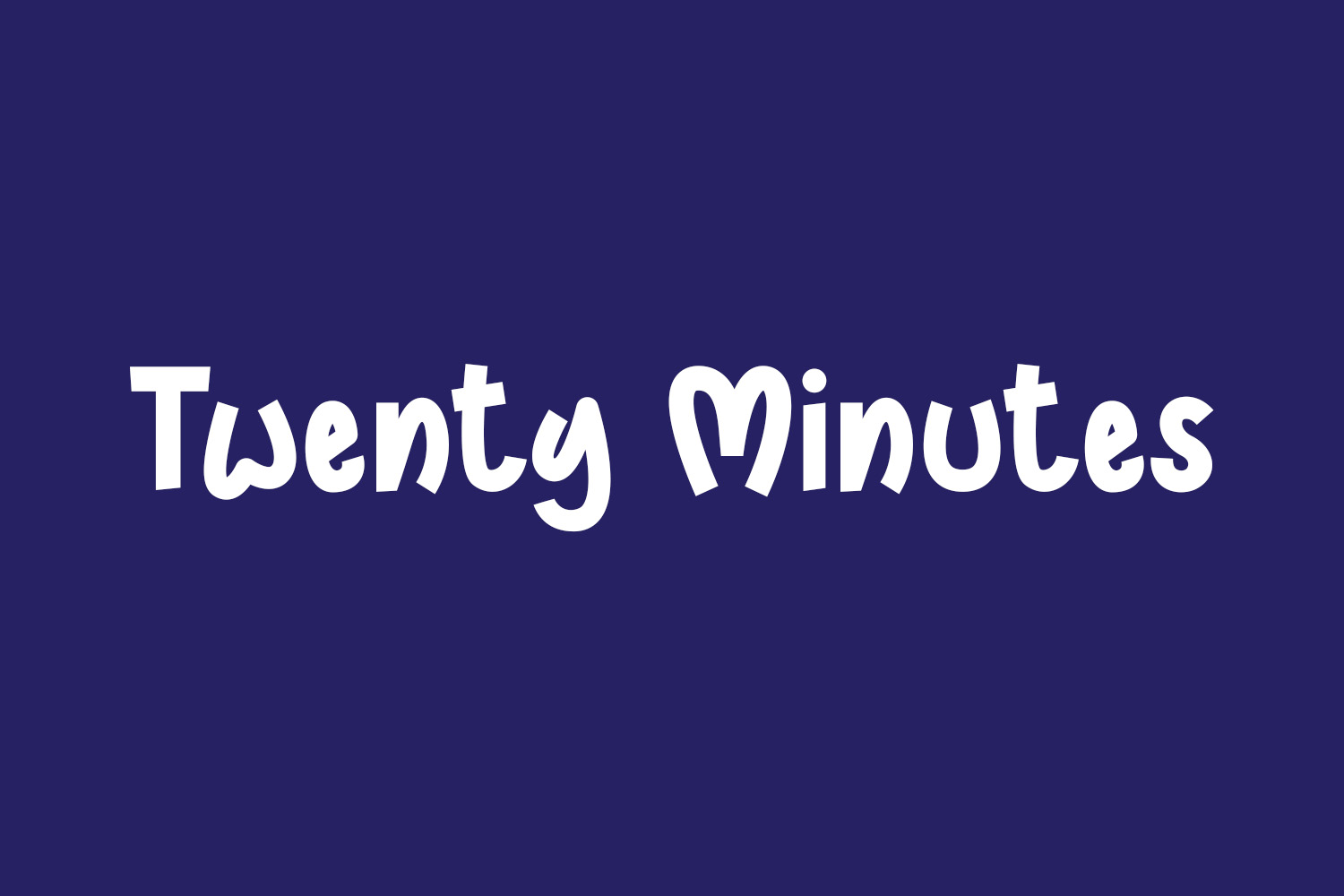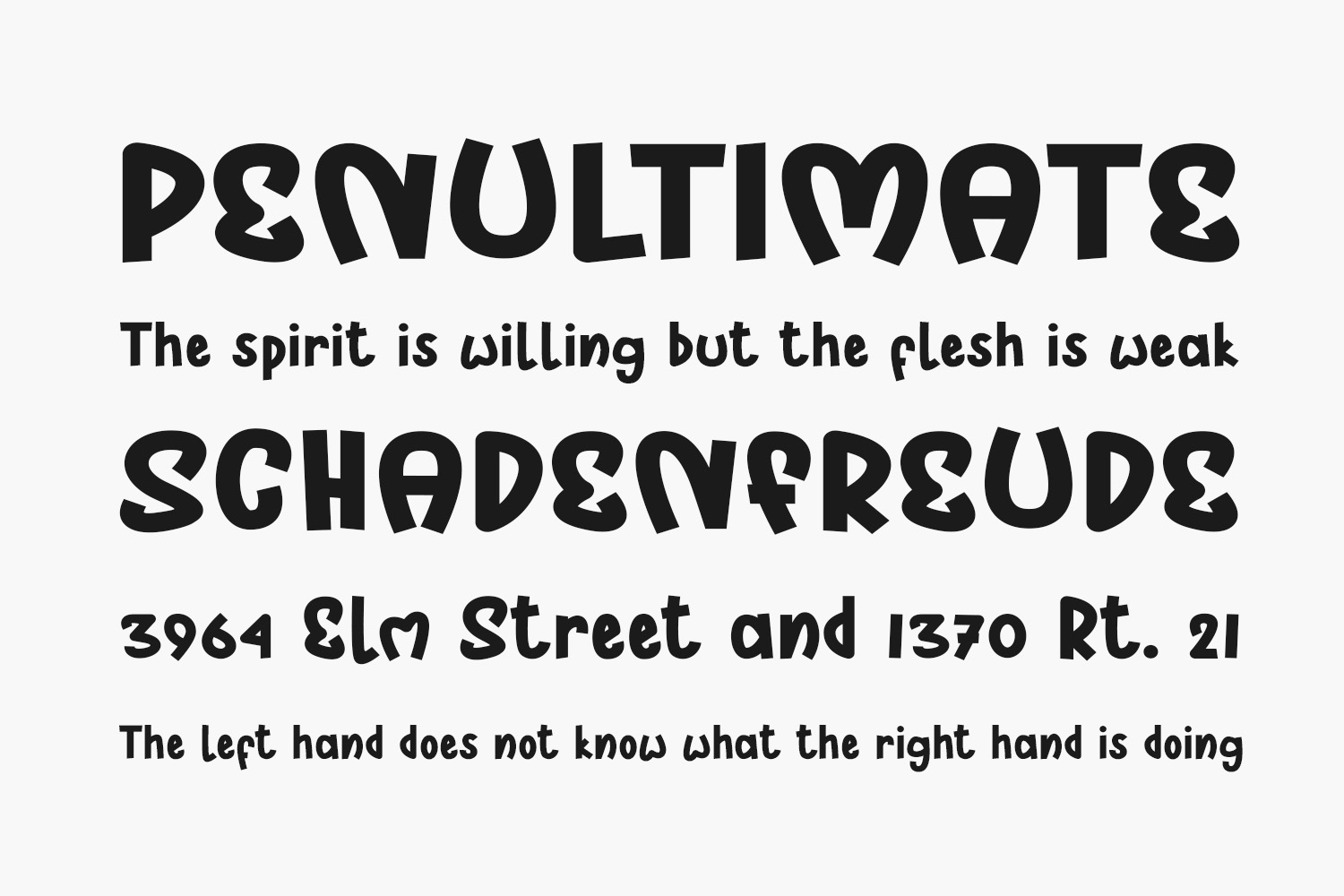
Twenty Minutes Free Font is a cute and friendly handwritten font. Clean and soft, this font is the perfect fit for all of your crafty DIY projects, logos, branding, social media post, and much more. Twenty Minutes Free Font was designed by BrandSemut and is free for personal use only. Please purchase the full version for commercial use.